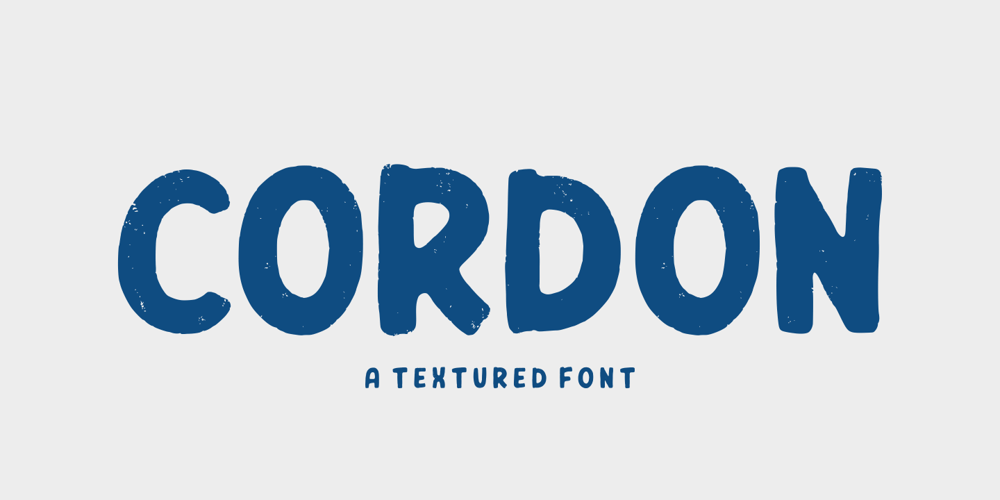
Cordon Font Family was designed by Risman Ginarwan and published by Garisman Studio. Cordon contains 2 styles and family package options. Cordon is a textured font that gives a feel of vintage, classic, old and handmade. Already PUA Encoded, this font is perfect for people looking for vintage aesthetic and suitable for any graphic designs such as branding materials, t-shirts, print, business cards, logos, posters, photography, quotes, and more. Cordon has support for 23 languages: Afrikaans, Albanian, Catalan, Croatian, Czech, Danish, Dutch, English, Estonian, Finnish, French, German, Hungarian, Icelandic, Italian, Norwegian, Polish, Portuguese, Slovak, Slovenian, Spanish, Swedish and Zulu.